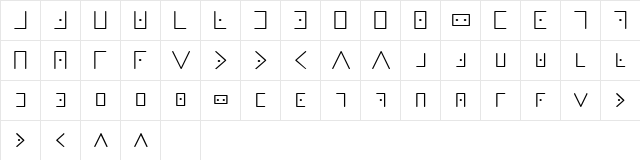
Masonic Writing Regular
Design Context for Masonic Writing Typeface
Masonic Writing offers clean, dependable letterforms without strong stylistic allegiance, making it a practical choice for designers who need flexibility.